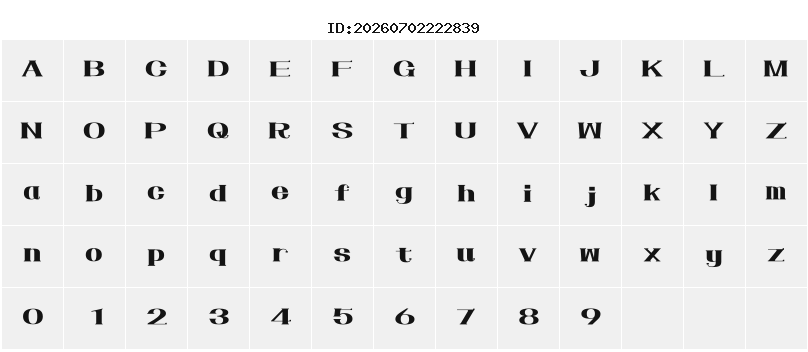
266-上首千禧体 Preview
• Font Name: 266-上首千禧体
• Full Font Name: 266-上首千禧体
• Version: Version 6.00 August 2, 2023
• Manufacturer: 上首造字
About 266-上首千禧体.ttf
266-上首千禧体.ttf is a modern, elegant sans-serif font designed for ultimate readability and visual harmony. Perfect for branding, headlines, web design, and print materials.